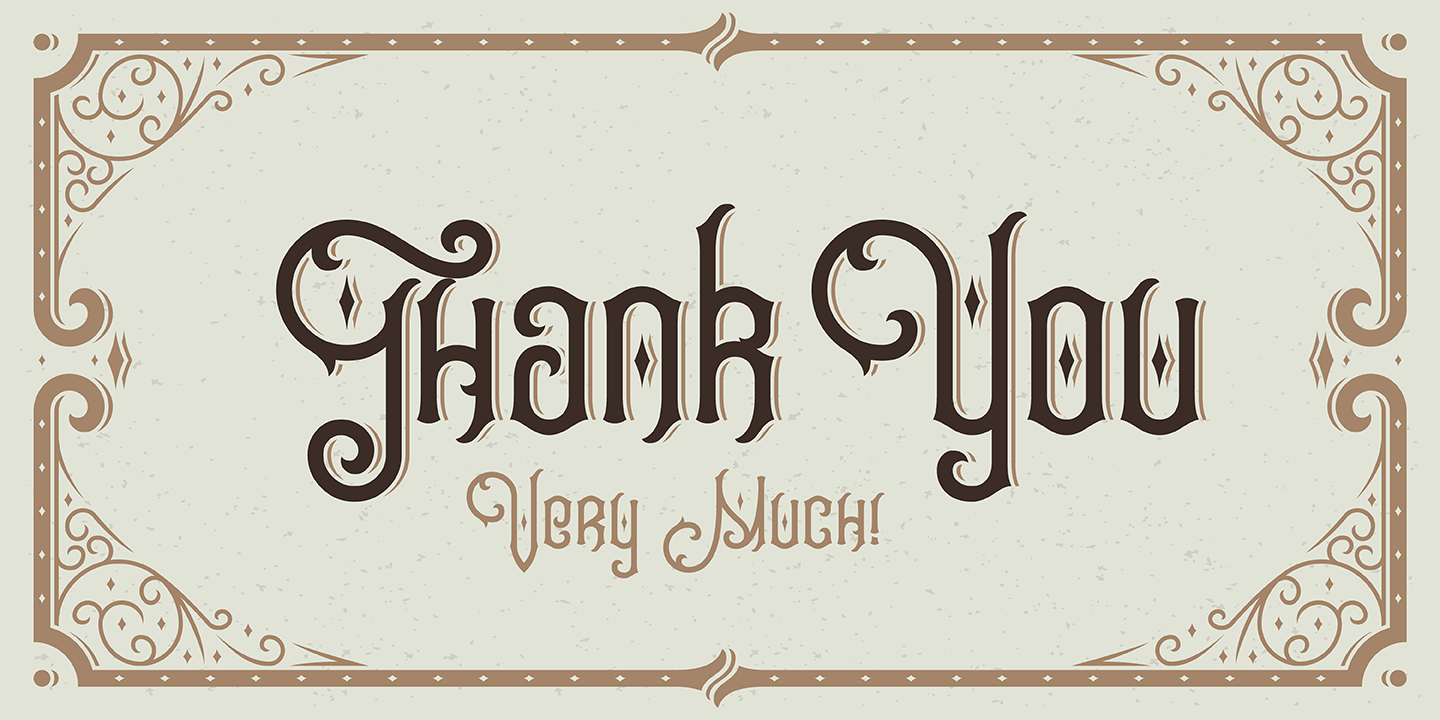
Tobacco Box Font is a rugged and authentically vintage typeface, perfectly suited for designs that aim to evoke a sense of heritage, craftsmanship, and a classic, distressed aesthetic. Imagine it gracing the labels of artisanal spirits, adding an old-school charm to barber shop signage, or creating impactful headlines for independent breweries. Its often textured appearance and robust character also make it an excellent choice for crafting unique apparel designs, developing rustic branding for outdoor gear, and enhancing the visual appeal of historical documentaries or themed events. Whether you're aiming for a weathered, industrial, or genuinely retro look, Tobacco Box Font delivers a powerful and evocative visual identity.
What makes Tobacco Box Font truly exciting is its ability to instantly transport viewers to a bygone era. It's not just a font; it’s a storyteller, imbuing your text with character and a sense of history. The intentional imperfections and often distressed details give it an authentic, hand-stamped feel that mass-produced typefaces simply can't replicate. This makes it incredibly effective for projects where you want to convey authenticity, durability, and a rich narrative. Tobacco Box Font stands out by offering a unique blend of rugged charm and timeless appeal, making it a compelling choice for brands that want to celebrate tradition and quality.
The Tobacco Box Font family typically emphasizes its distinctive aesthetic, often featuring a core set of styles that highlight its vintage and distressed qualities. While it might not have the extensive weight range of a more conventional text font, you can often find a standard Regular weight, sometimes complemented by a slightly bolder version for added impact. Many versions also include unique stylistic alternatives, ligatures, or even distressed variations (e.g., clean vs. textured) that enhance its handcrafted and aged appearance. These variations allow designers to create depth and authenticity within their layouts, ensuring that each use of Tobacco Box Font Free Download feels genuinely unique and true to its heritage-inspired roots.